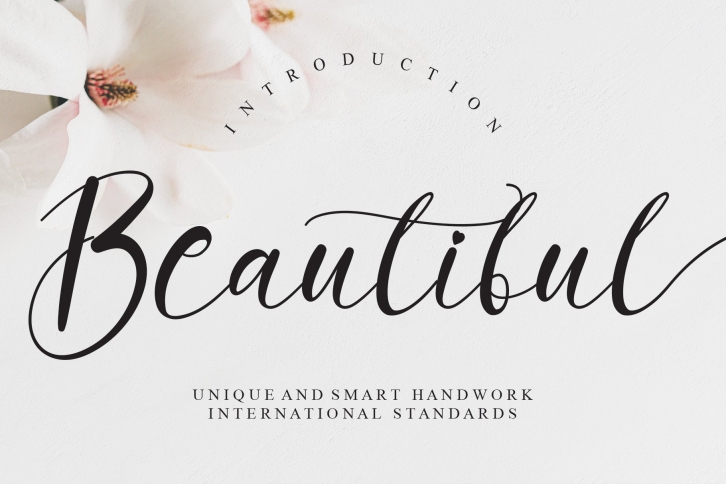
Beautiful is a beautiful font that was designed by creativewhitee. It's a great choice for designers and creatives who need such a font. It was released on May 28, 2021 and the file size is 17.53 MB. Beautiful may give a more youthful, expressive and casual look to your project. It is a very beautiful, refined, elegant, and high-quality font.